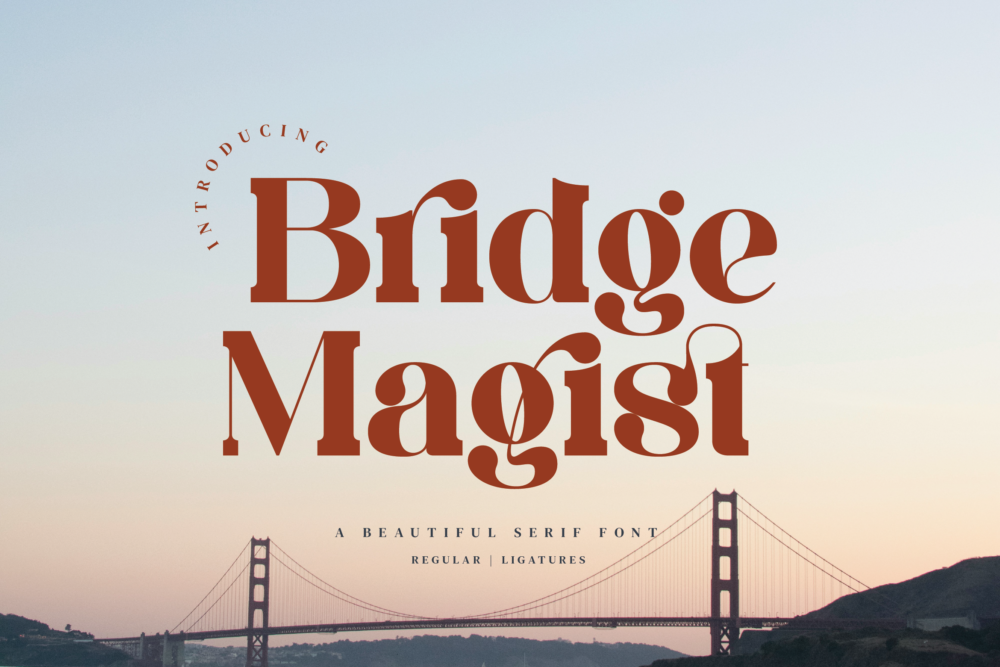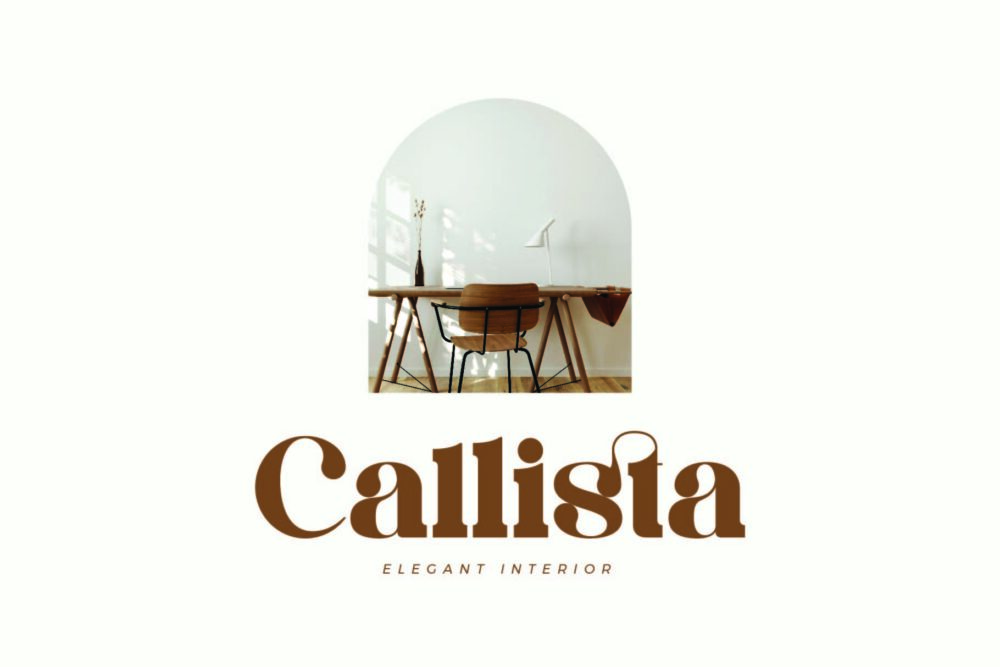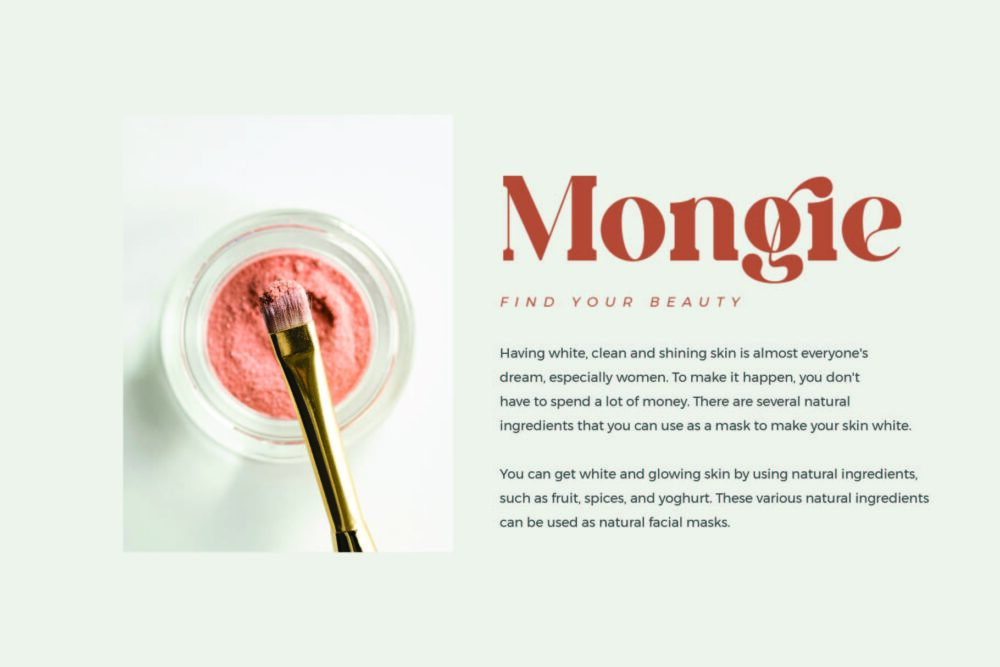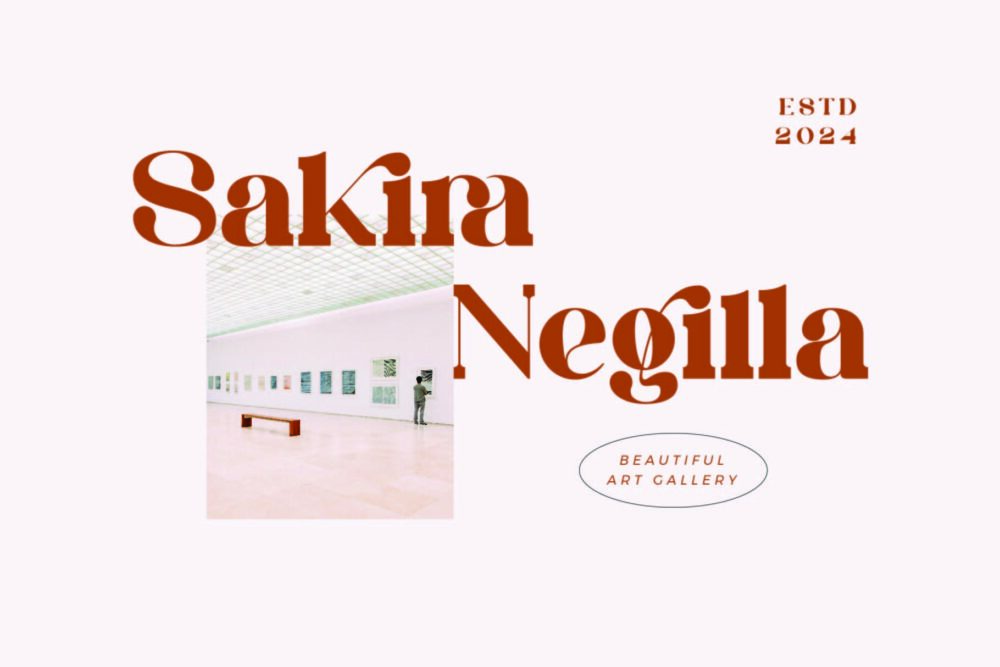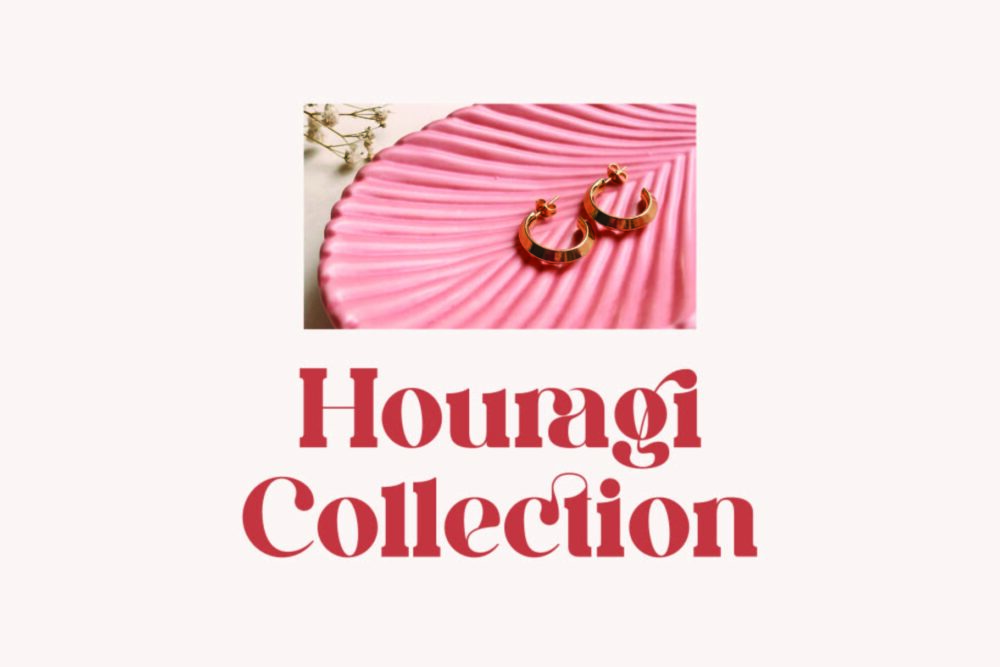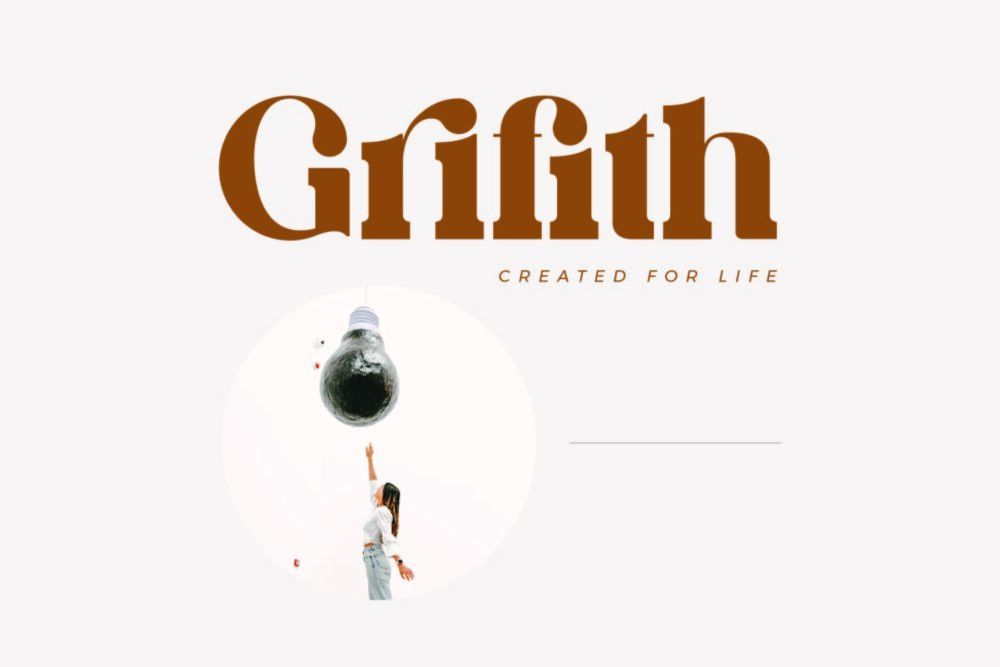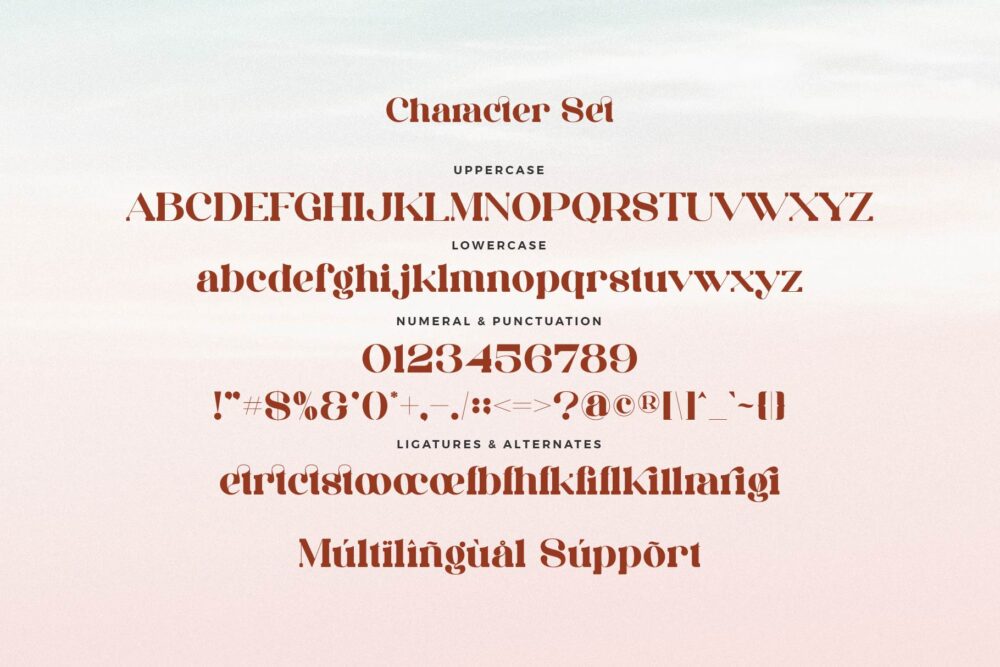
Bridge Magist
Bridge Magist Stylish Ligature Typeface, inspired by the famous minimalist logo perfect for the purposes of designing templates, brochures, videos, advertising branding, logos and more.
Bridge Magist – Beautiful Serif Font